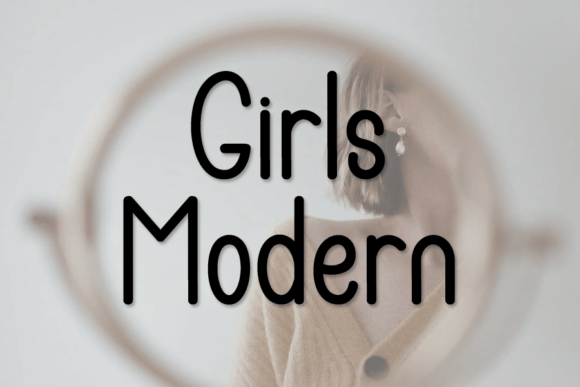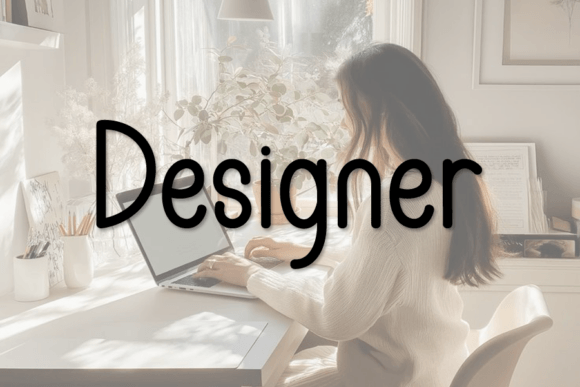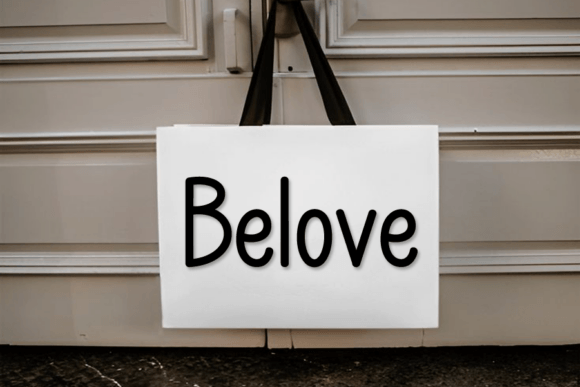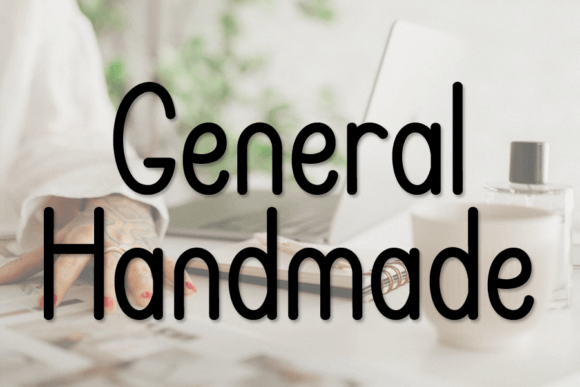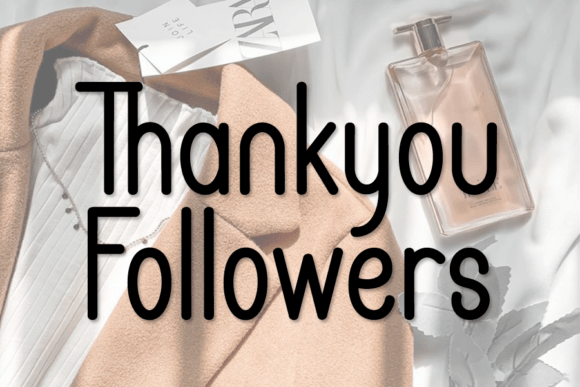
Introducing Happy Monday Font: The Ultimate Choice for Creative Designers
Are you tired of using the same old fonts for your design projects? Look no further! Happy Monday Font is here to revolutionize your creative endeavors with its classic and simple handwritten script. This beautiful font is designed in a random and free style, making it perfect for a wide range of applications.
What Makes Happy Monday Font So Special?
Happy Monday Font is a versatile and elegant font that can be used for various design projects, including logotype, headline font, corporate identity, brand identity, apparel industry, posters, music, movies, games, magazines, books, comics, cartoons, YouTube, Instagram, websites, and more. Its unique and carefree style makes it an excellent choice for designers and crafters looking to add a personal touch to their work.
Key Features of Happy Monday Font
- Classic and Simple Handwritten Script: Happy Monday Font boasts a timeless and effortless design that exudes a sense of friendliness and approachability.
- Random and Free Style: The font’s irregularities and quirks give it a charming, handmade feel that’s perfect for creative projects.
- Highly Versatile: Use Happy Monday Font for a wide range of applications, from digital media to print materials.
- Easily Customizable: Experiment with different colors, sizes, and styles to make the font your own.
Happy Monday Font is an excellent addition to any designer’s or crafter’s toolkit. Whether you’re working on a personal project or a client’s commission, this font is sure to impress. Its unique style and versatility make it perfect for:
- Branding and Identity: Create a lasting impression with a custom logotype or headline font that showcases your brand’s personality.
- Apparel and Merchandise: Add a touch of personality to your t-shirts, hoodies, mugs, and other merchandise with Happy Monday Font.
- Digital Media: Use the font for YouTube videos, Instagram posts, website headers, and more to give your content a distinctive look.
- Print Materials: Happy Monday Font is perfect for posters, flyers, brochures, magazines, and books.
Tips for Using Happy Monday Font
To get the most out of Happy Monday Font, here are some expert tips:
- Experiment with Colors: Try pairing Happy Monday Font with bold, bright colors to create a statement piece.
- Mix and Match: Combine Happy Monday Font with other fonts to create a unique and eye-catching design.
- Play with Size: Use different font sizes to create visual hierarchy and add emphasis to your design.
Happy Monday Font is a game-changer for designers and crafters looking to add a personal touch to their work. Its classic and simple handwritten script, combined with its random and free style, make it the perfect choice for a wide range of creative projects. With its versatility, customizability, and charm, Happy Monday Font is sure to become a staple in your design toolkit.